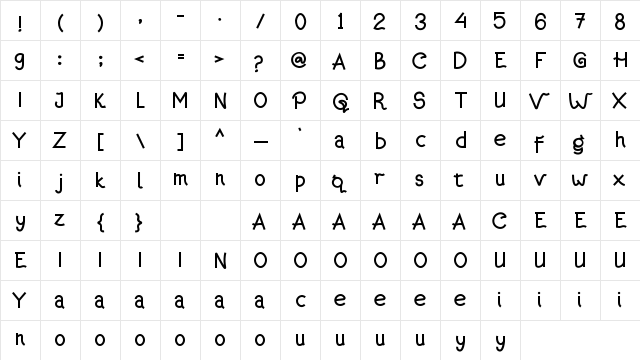
Kanagif Personal Use Regular
Design Context for Kanagif Personal Use Typeface
Kanagif Personal Use is a composed and adaptable typeface that performs quietly and consistently across a wide range of design contexts.